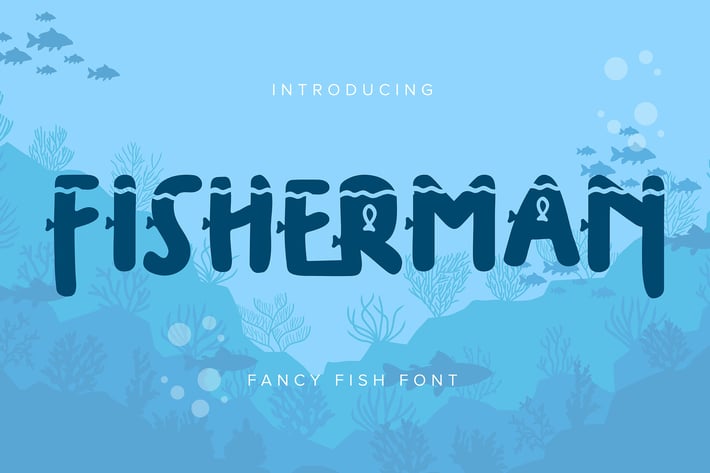
Fisherman | Fancy Fish Font
Fisherman | Fancy Fish Font with a calligraphy style, So beautiful on invitation like greeting cards, branding materials, business cards, quotes, posters, and more!